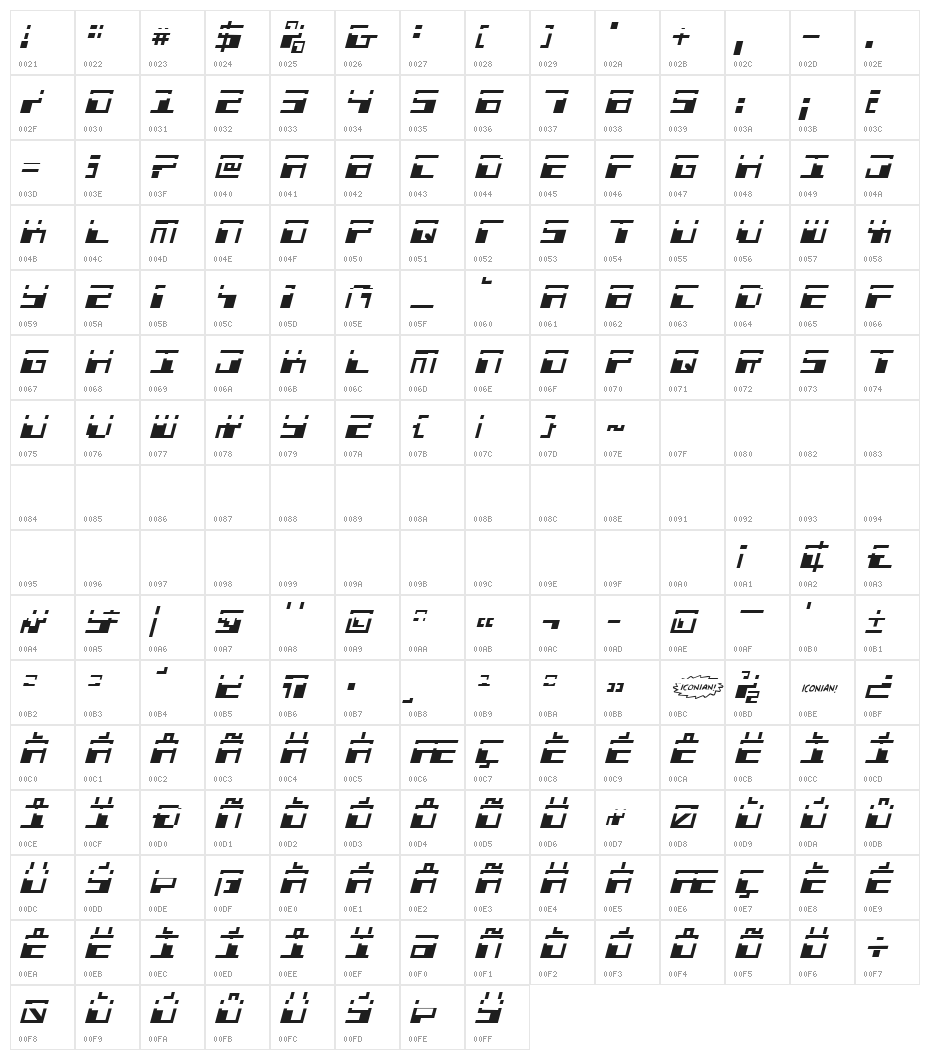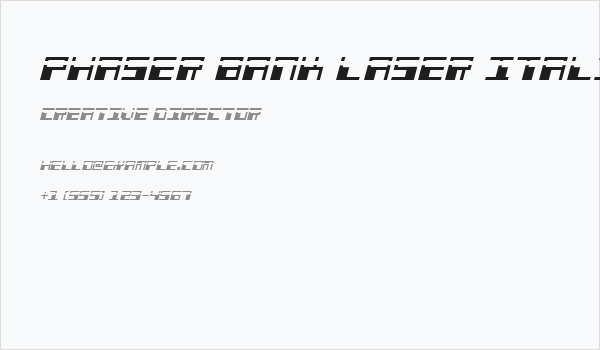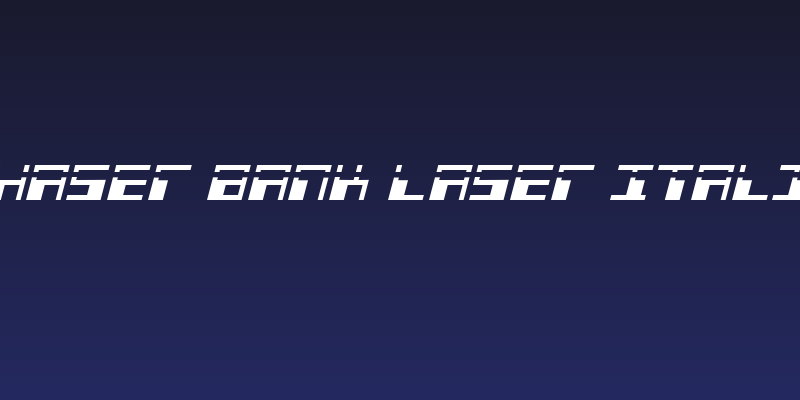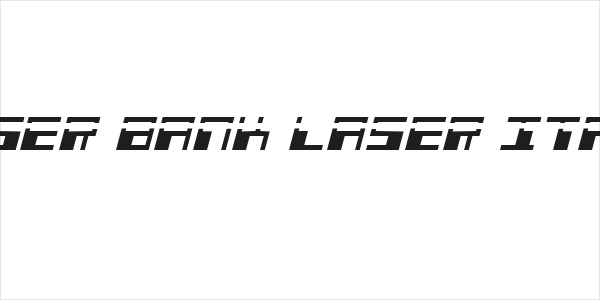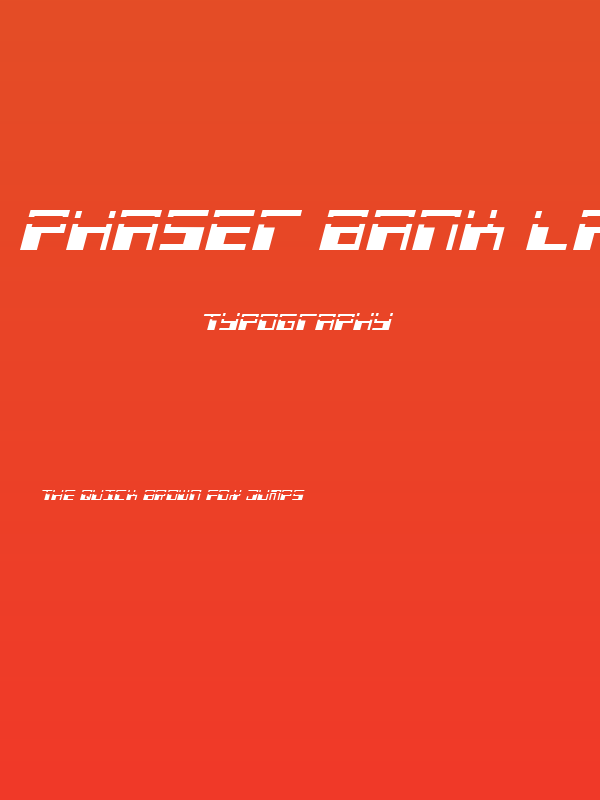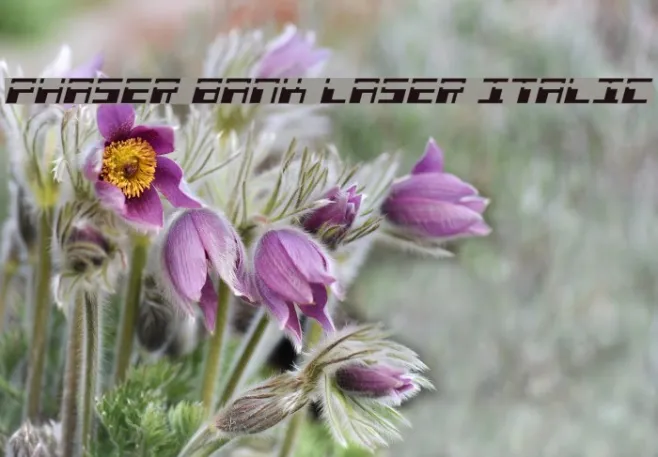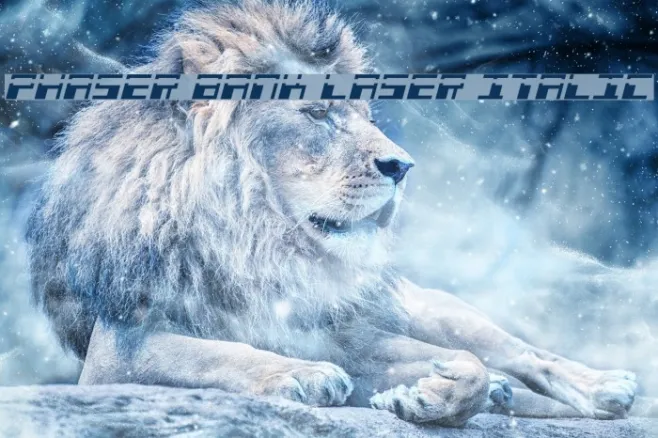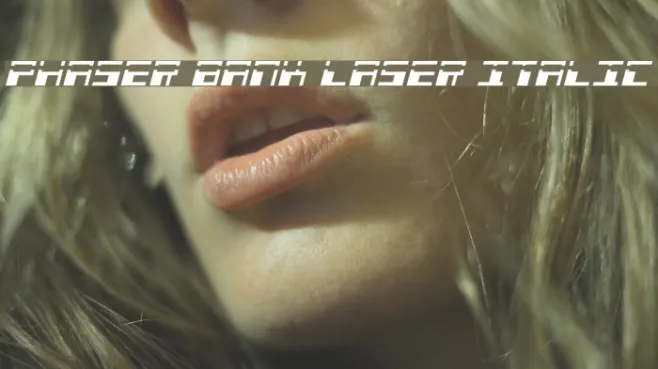
Phaser Bank Laser Italic Font
Phaser Bank Laser Italic Description
This font features a futuristic and angular design, characterized by its sharp edges and geometric shapes. The italic style adds a dynamic and forward-leaning appearance, enhancing its modern and tech-inspired aesthetic. The uppercase and lowercase letters maintain a consistent style, with the numerals and special characters following suit. The overall design is bold and impactful, making it suitable for projects that require a strong visual presence. The font's unique style is reminiscent of digital or sci-fi themes, making it ideal for creative and innovative applications.
| Proposed Projects | Ideal for sci-fi themed designs, tech branding, video game titles, and futuristic posters. |